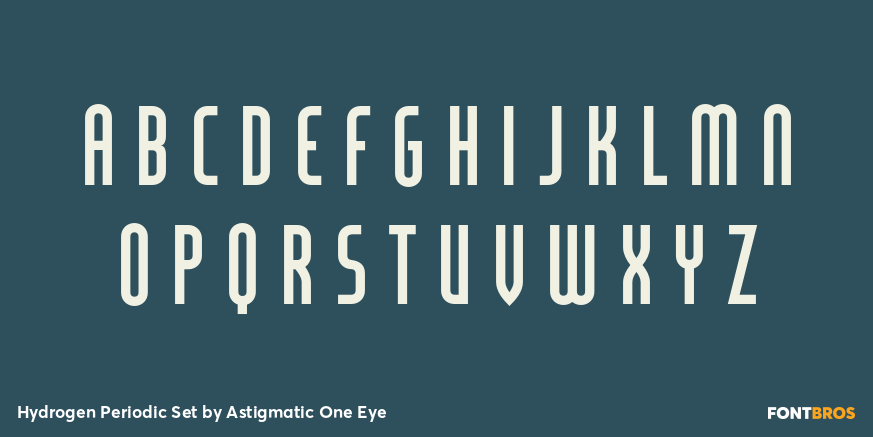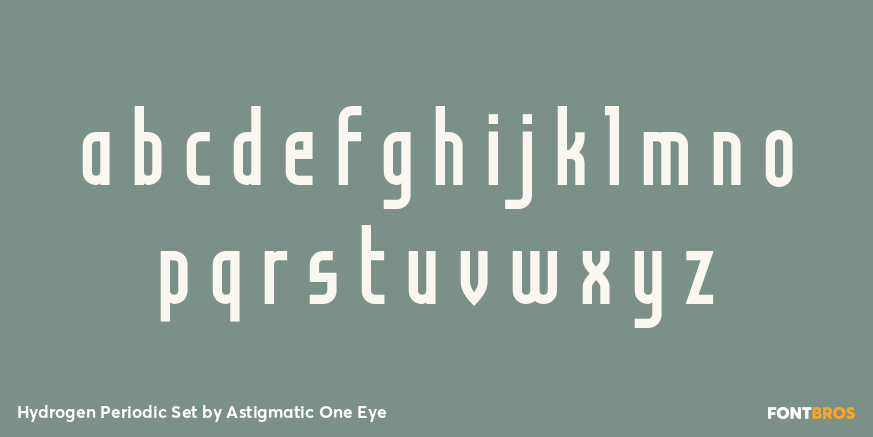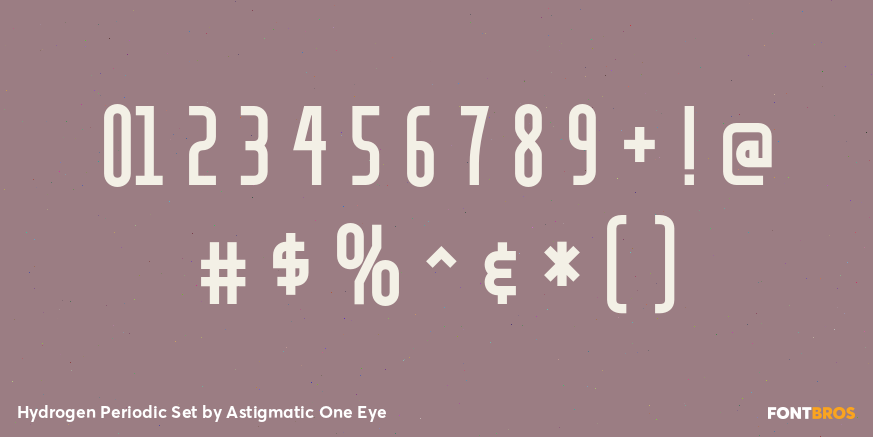
Hydrogen Periodic Set
Font Family by Astigmatic One Eye
The first release of this series, the Hydrogen Set, is a family of four industrial typefaces, from geometric to rounded, and their inline versions. This inaugural set is available for an amazing value of only $16. Future sets in the series will be available for $20.